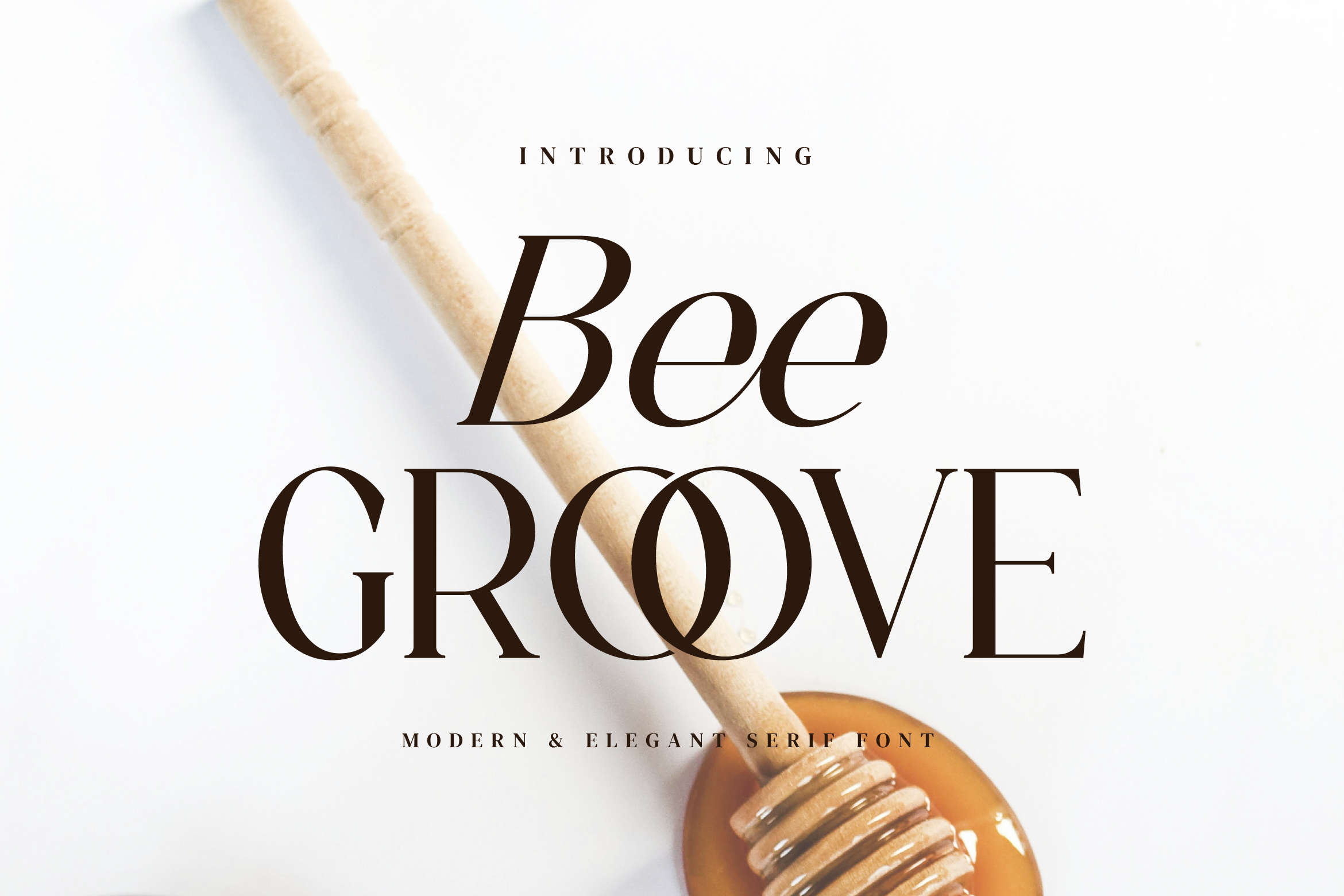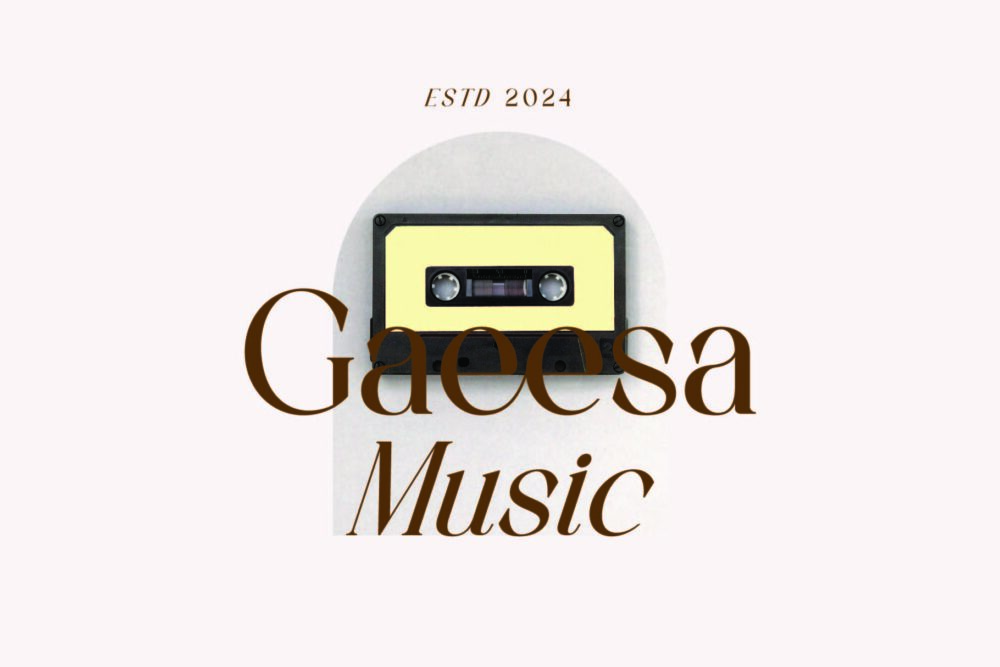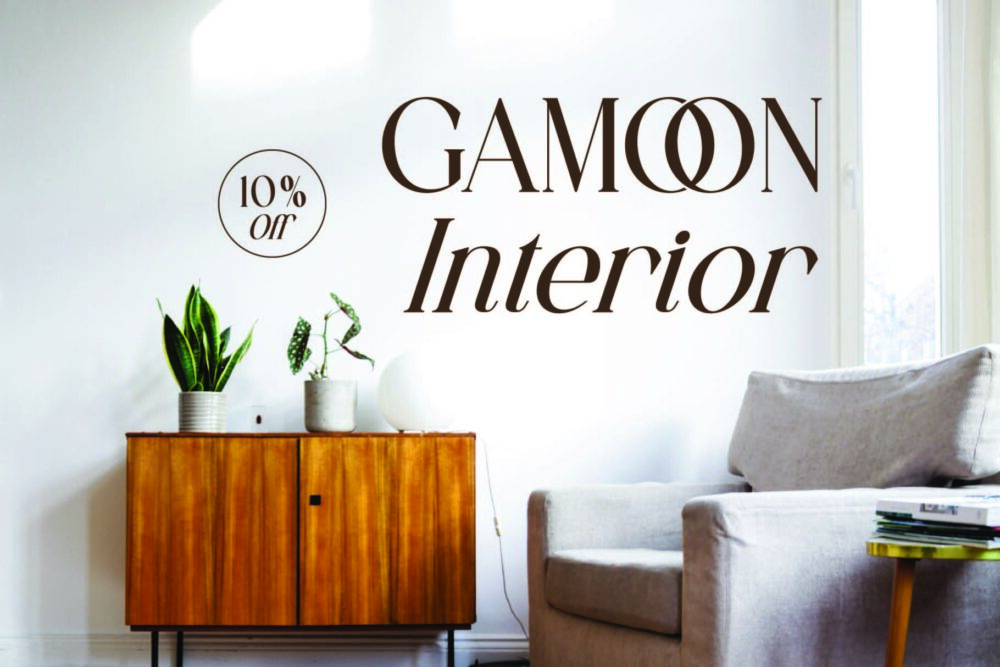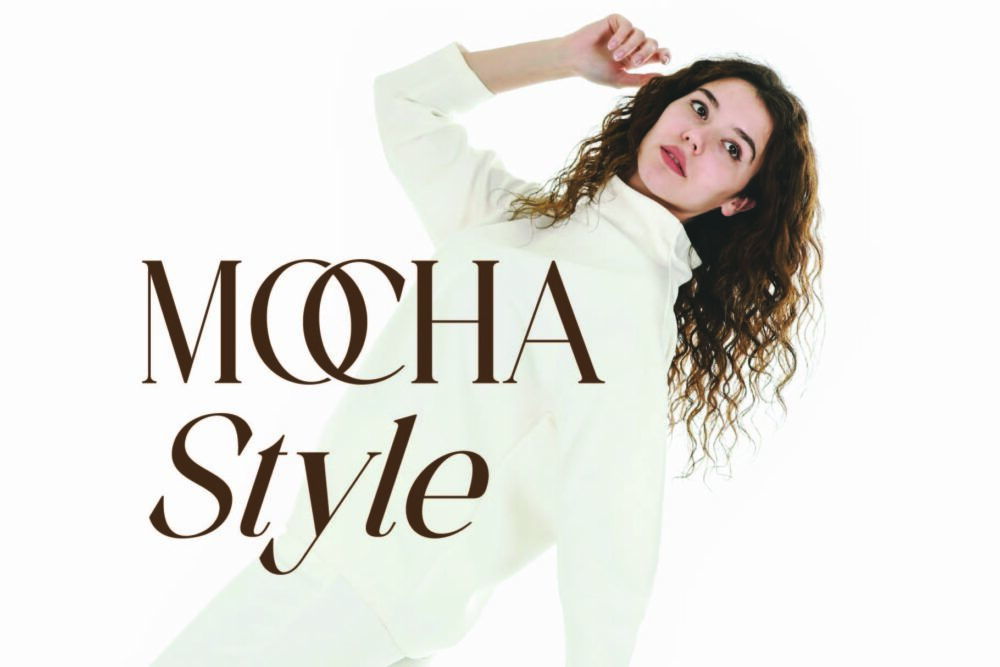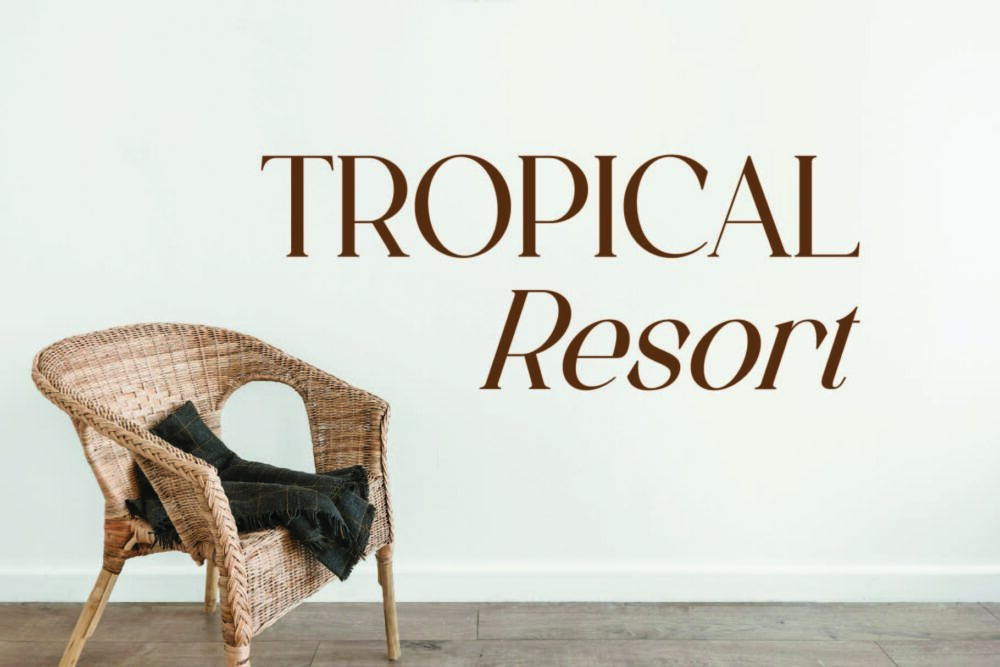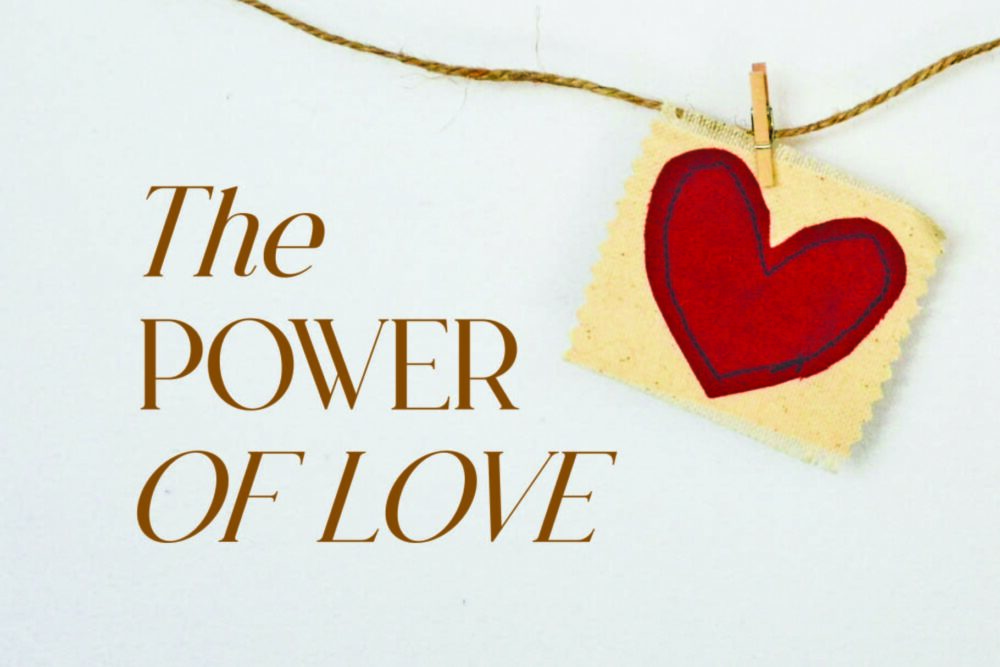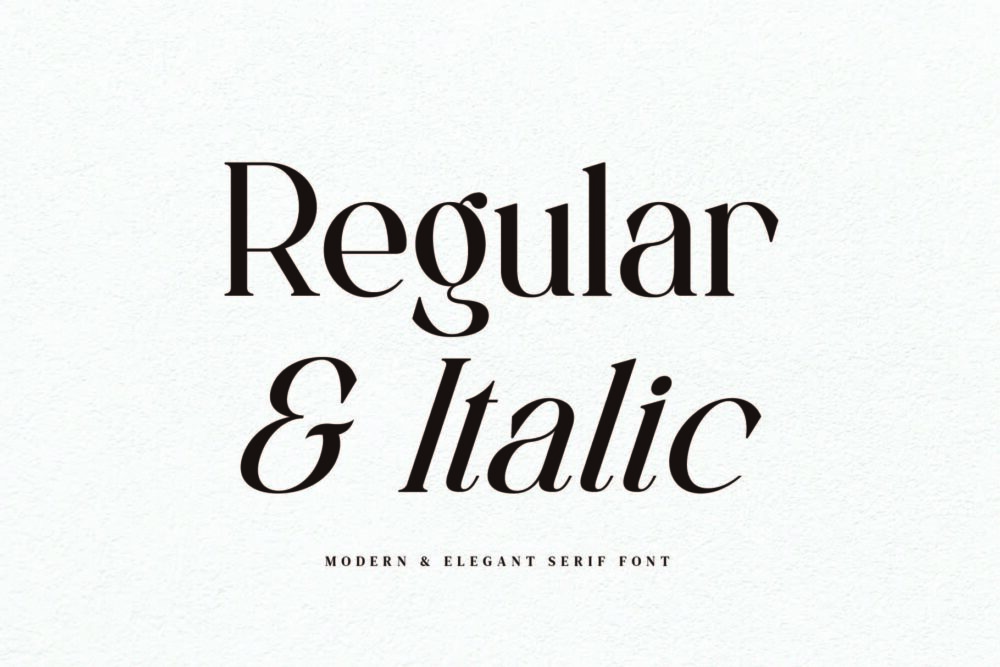
Bee Groove
Bee Groove Italic
Bee Groove Stylish Ligature Typeface, inspired by the famous minimalist logo perfect for the purposes of designing templates, brochures, videos, advertising branding, logos and more.
Bee Groove – Modern Elegant Serif Font